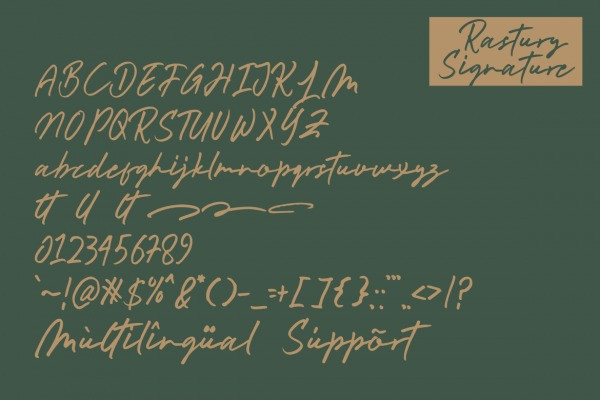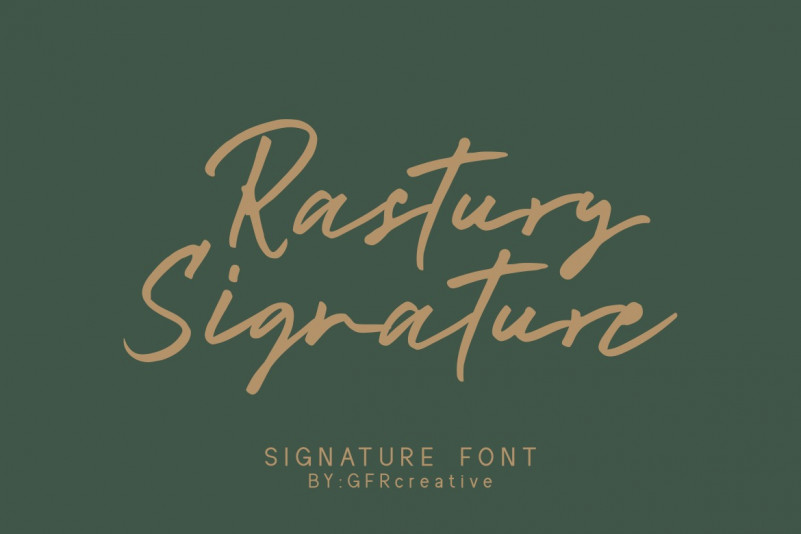
Rastury Signature Script Font
Rastury Signature is a signature font with character
A great font to use in many ways for your latest project.
Perfect for logos & branding, photography, invitations, watermarks, advertising, product design, stationery, wedding designs, labels, product packaging, special events, or anything else that requires handwritten content.
Also available for punctuation, numbers and extensive language support